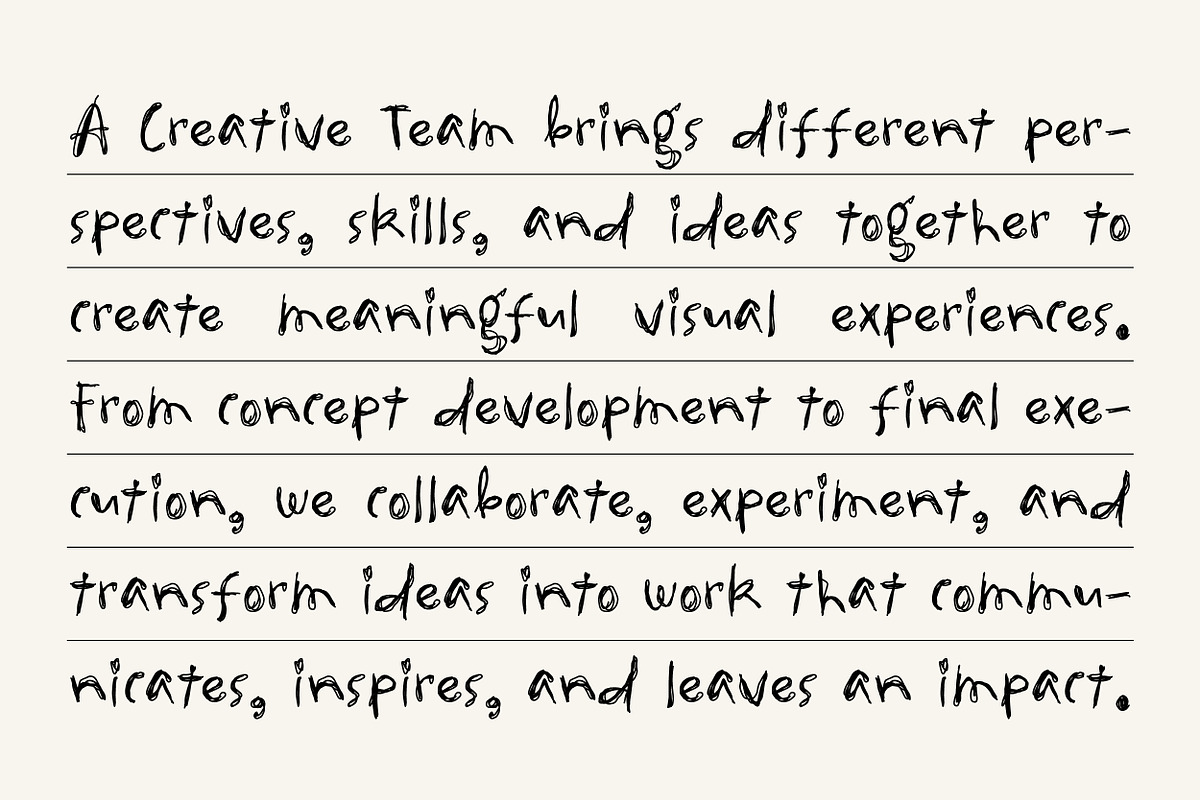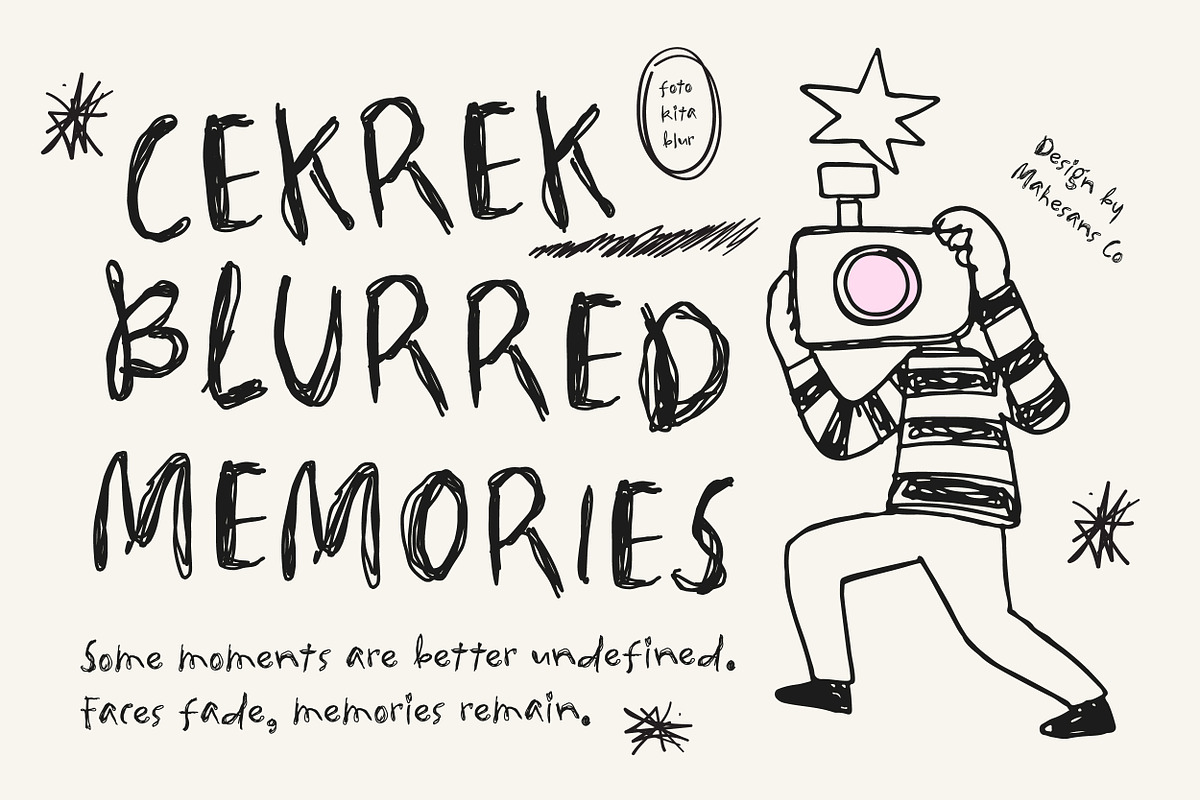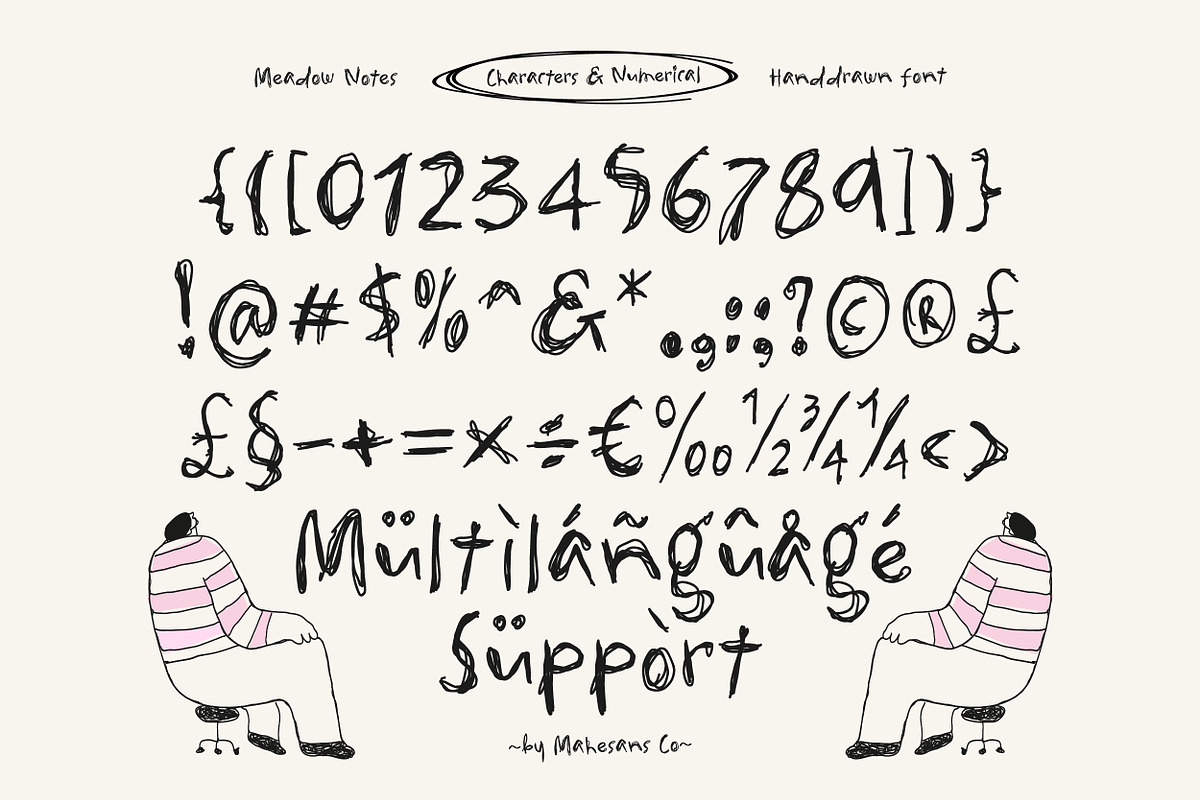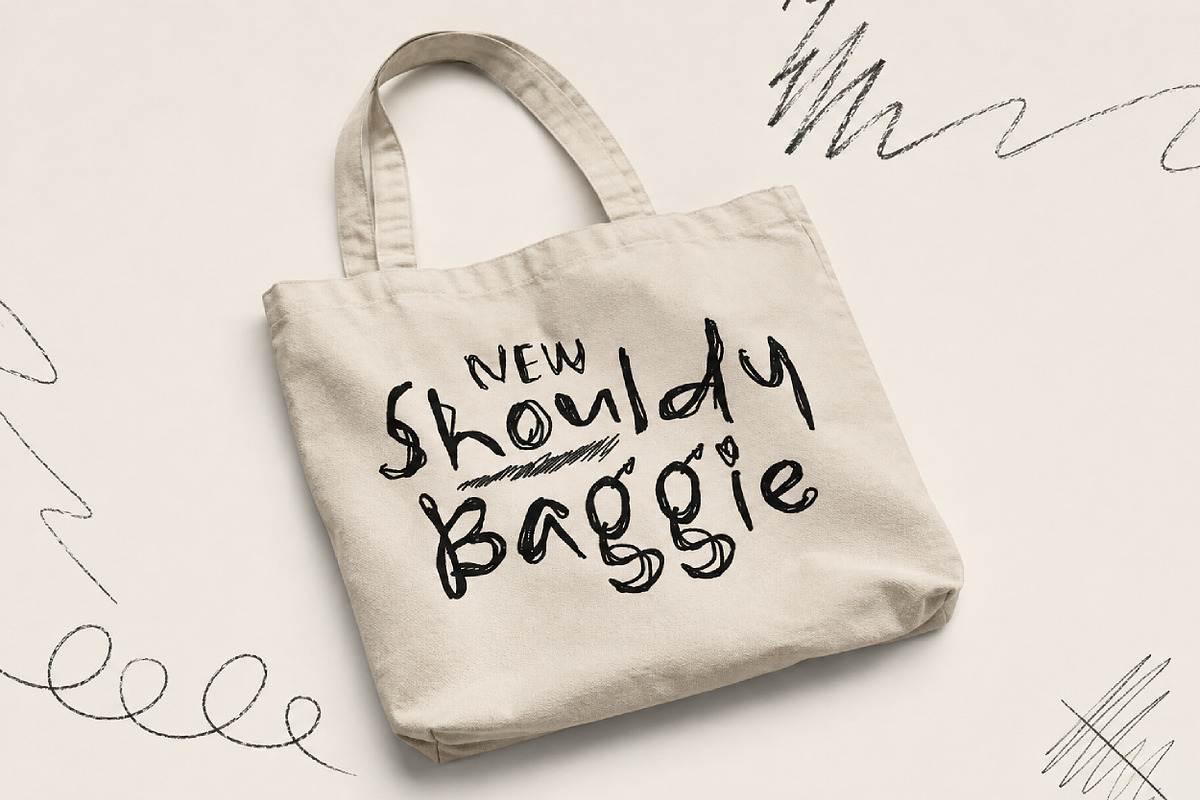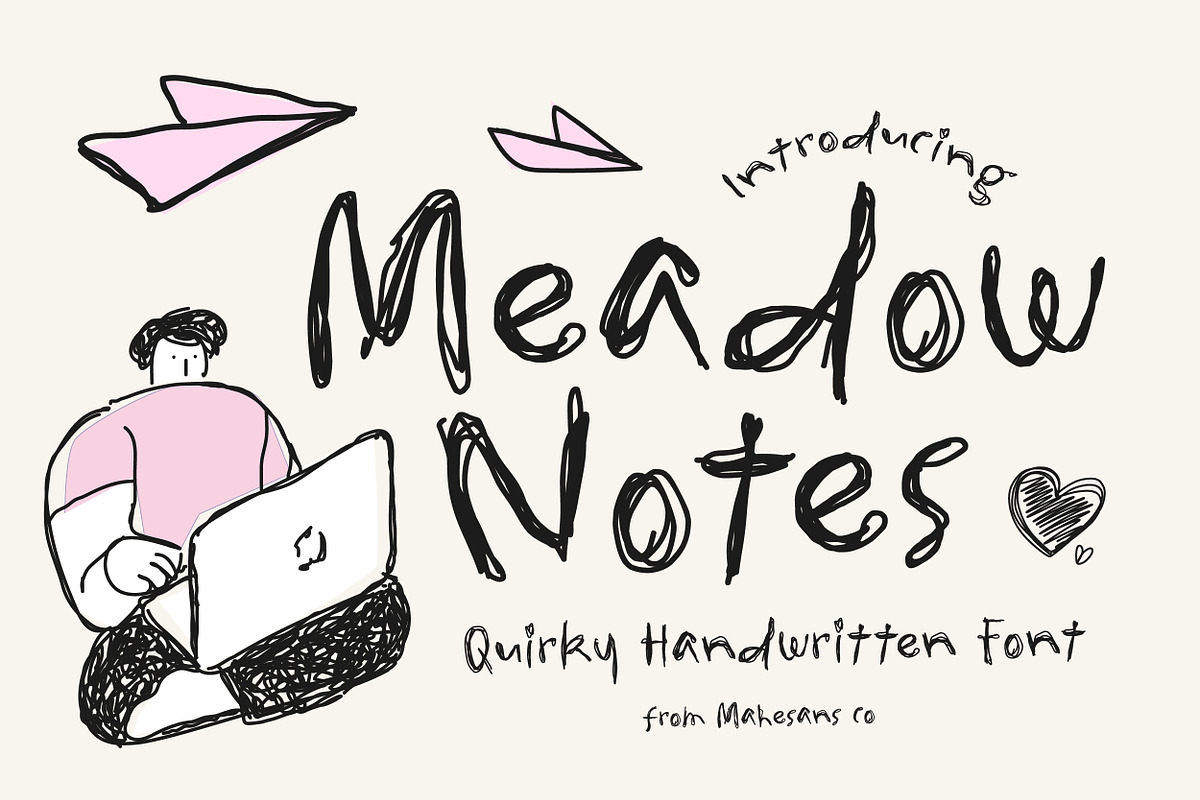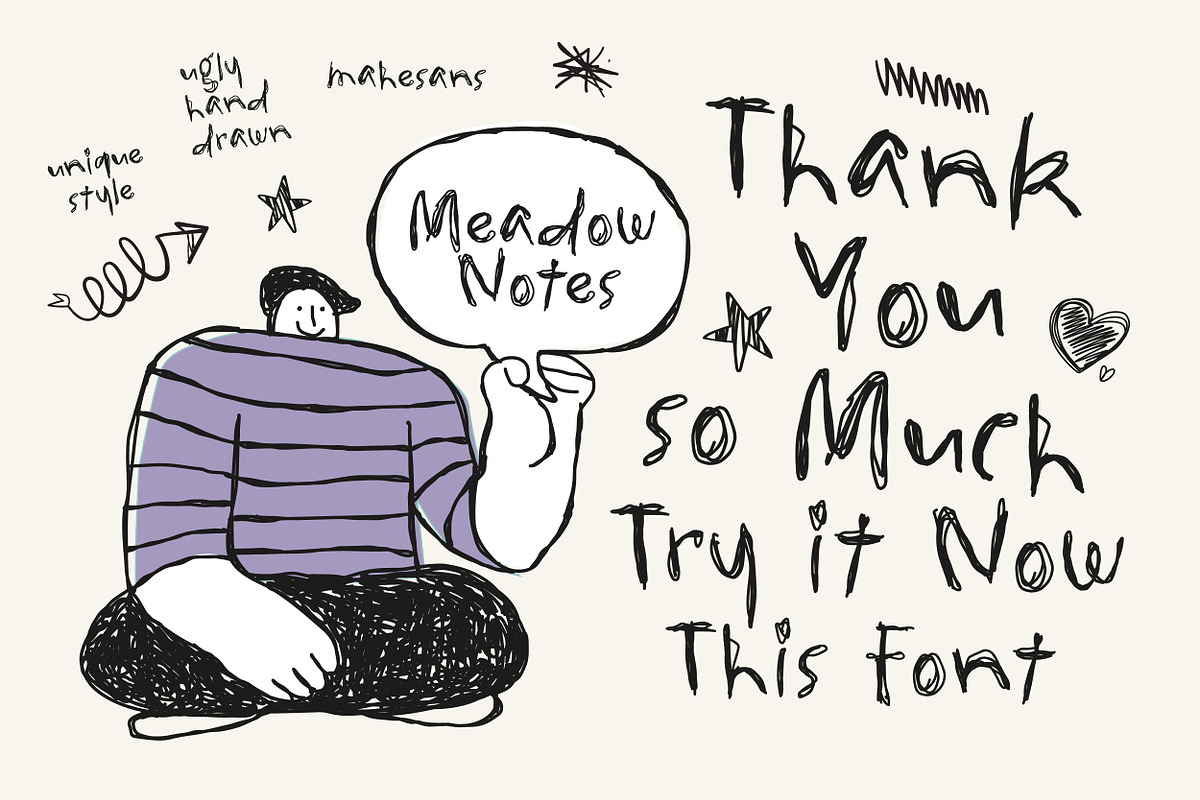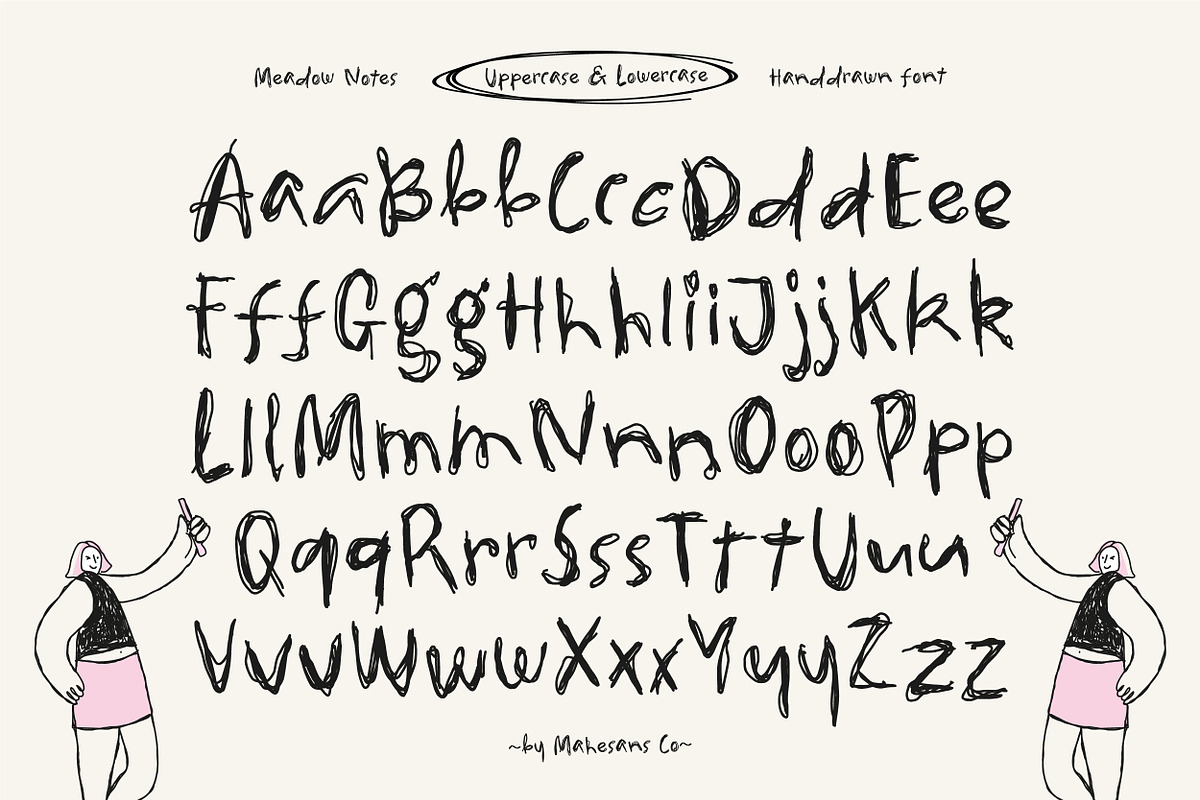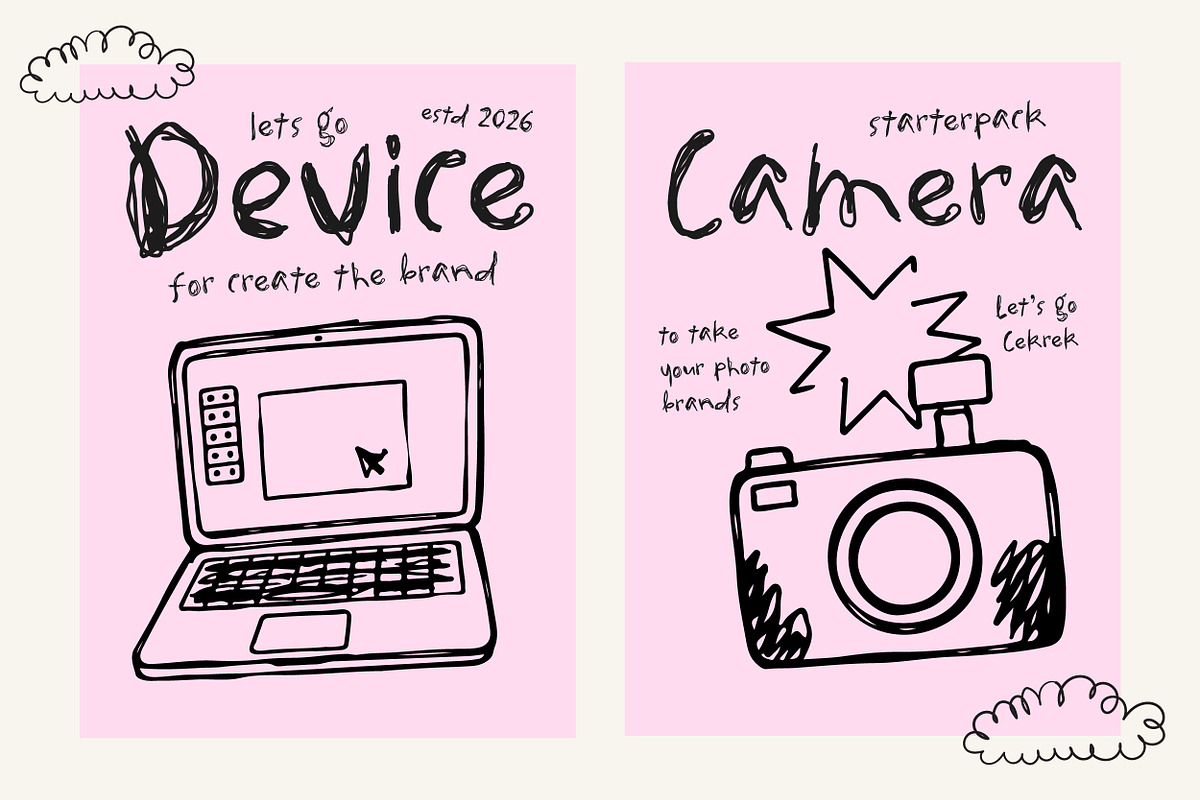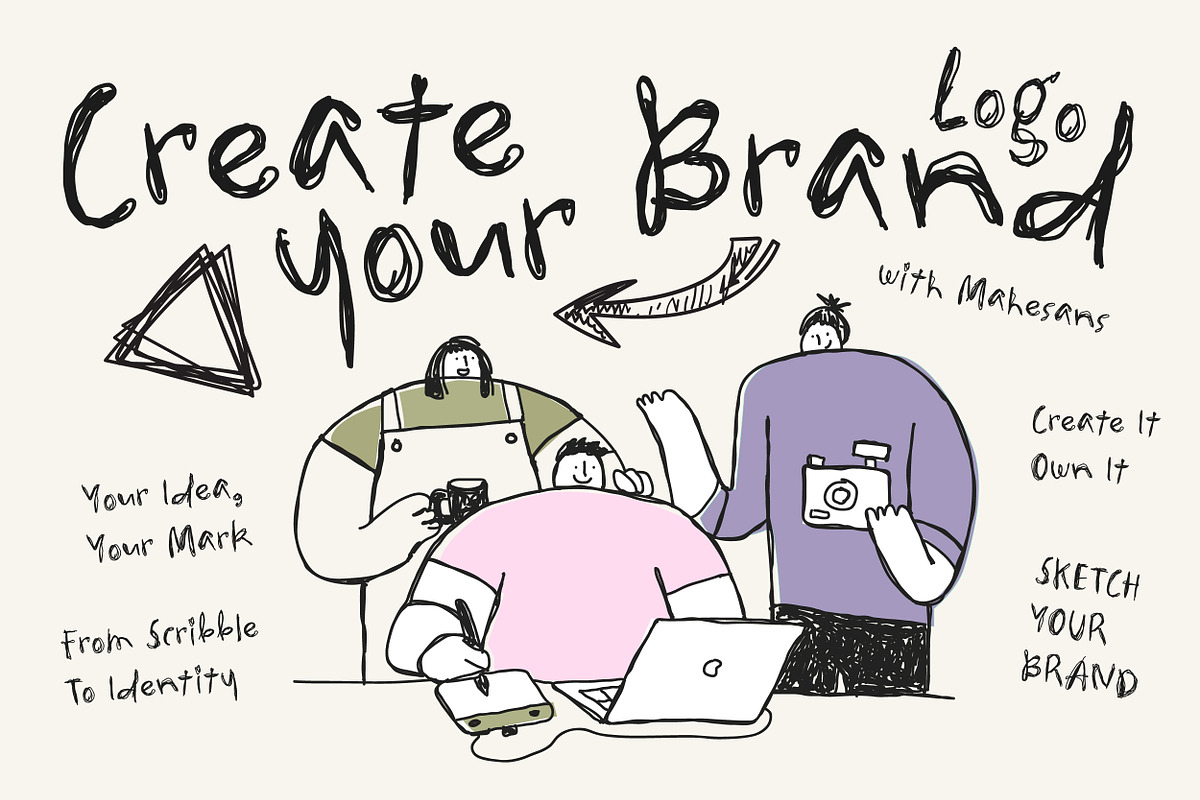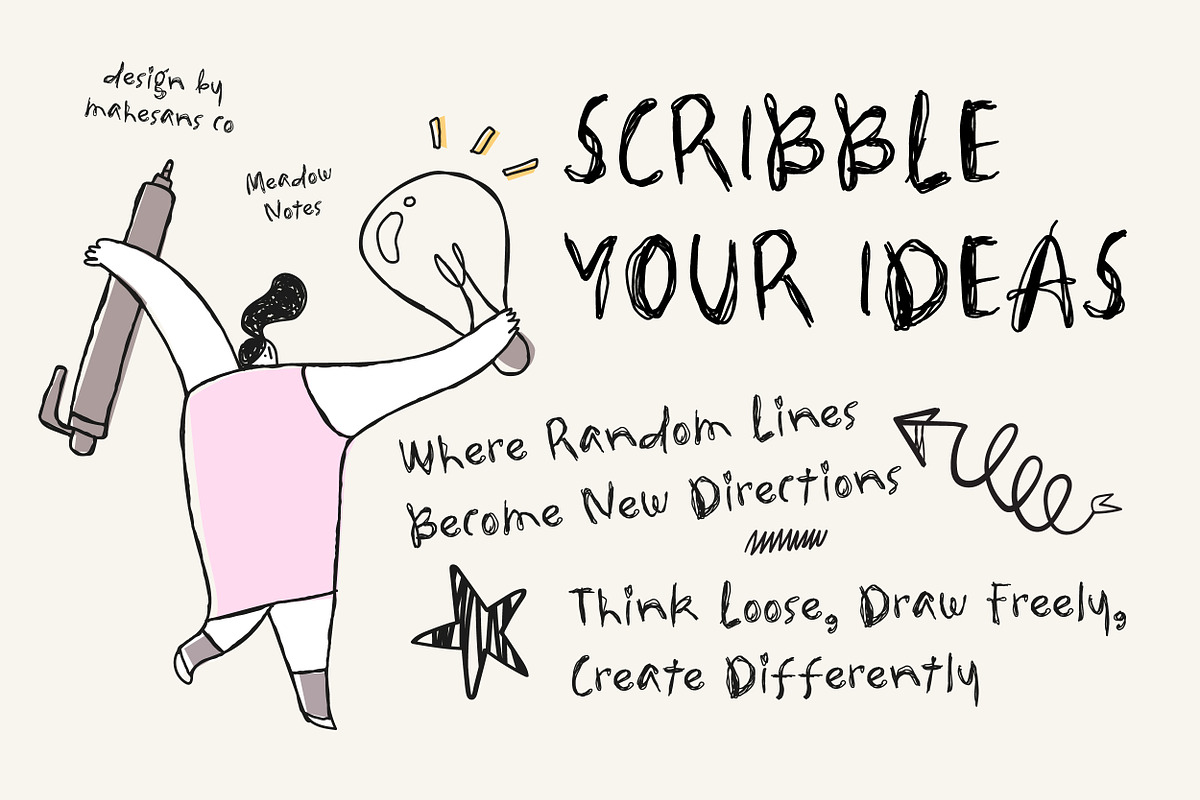
Meadow Notes – Quirky Handwritten
Meadow Notes is a quirky handwritten font designed to bring a playful, personal, and spontaneous feel to your creative projects. Inspired by casual handwriting and rough sketchbook lettering, it features an imperfect, expressive style that feels authentic and full of character.
Its loose strokes and organic letterforms make Meadow Notes perfect for designs that need a friendly, youthful, and handcrafted touch. Whether you're creating a brand identity, social media graphics, posters, packaging, stationery, or personal projects, this typeface adds a distinctive handwritten personality to your work.
- Branding & Logo Design
- Posters & Flyers
- Social Media Graphics
- Packaging & Labels
- Stationery & Invitations
- T-Shirt & Apparel Design
- Stickers & Merchandise
- Editorial & Creative Layouts
- Personal & Lifestyle Projects